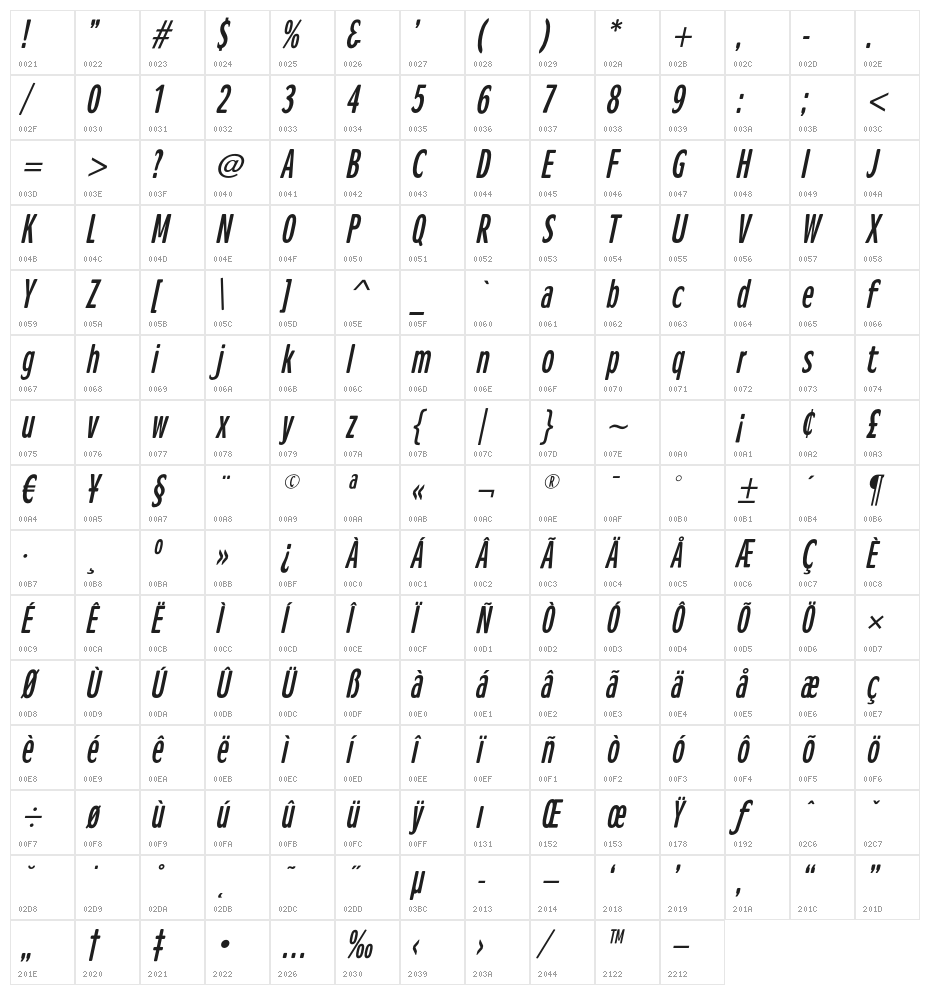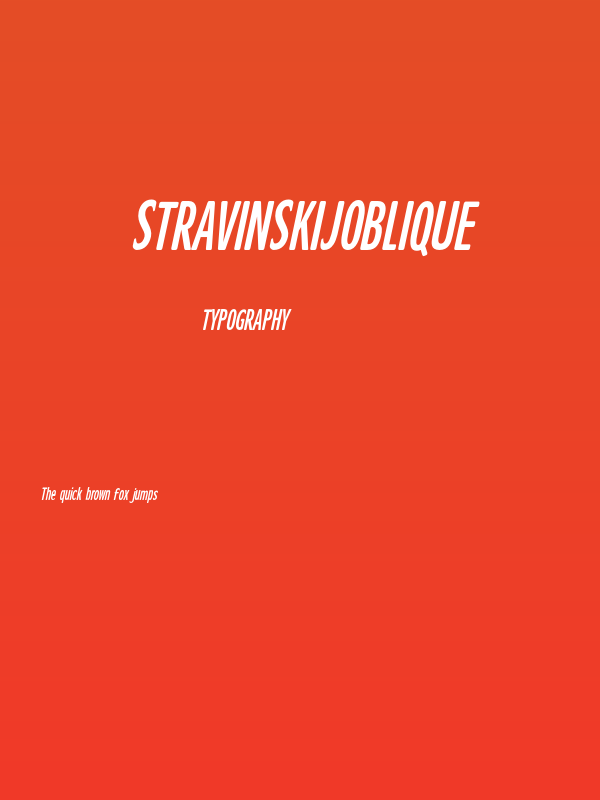
StravinskijOblique Font
StravinskijOblique Description
This font exhibits a dynamic and energetic style with its oblique orientation, giving a sense of movement and speed. The characters are bold and slightly condensed, creating a strong visual impact. The strokes are consistent in weight, providing a uniform appearance across all characters. The uppercase and lowercase letters maintain a harmonious balance, while the numerals are clear and easily distinguishable. Special characters are well-integrated, ensuring versatility in various design contexts. The overall design is modern and sleek, making it suitable for contemporary applications.